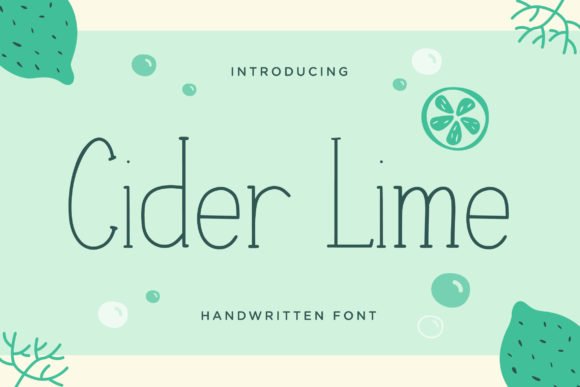
Unlock the Charm of Handwritten Texts with Cider Lime Font
Have you ever sat down with a cup of coffee, staring at a blank page, and suddenly, a brilliant design idea pops into your head? It’s moments like these that make being a designer so magical. You envision a beautiful layout, with elegant typography that draws the viewer in and tells a story. For those who have experienced this creative spark, we have exciting news: the perfect font to bring your ideas to life is just around the corner.
Meet the Cider Lime Font, a delightful serif font that adds a friendly and appealing touch to any design. This stylish font is perfect for creating gorgeous and unique layouts that capture the essence of your brand or message. Whether you’re a graphic designer, a blogger, or a small business owner, the Cider Lime Font is an invaluable asset to your design toolkit.
Cider Lime Font Key Features
- Font Family: Cider Lime Font, a unique, hand-drawn sans-serif typeface designed to evoke a sense of freshness and playfulness.
- Character Count: 248 characters, including uppercase and lowercase letters, numbers, punctuation marks, and special characters.
- Unique Characteristics: Features a distinctive, hand-drawn feel with subtle texture and imperfections, adding a touch of personality to any design project.
Cider Lime Font Review
Cider Lime Font is a beautiful, modern sans-serif typeface that’s perfect for adding a touch of freshness to your designs. Here’s what I think:
- The font’s x-height is well-balanced, making it easy to read even at smaller sizes.
- The unique, rounded edges of the letters add a playful touch without sacrificing readability.
- The font’s open feel makes it ideal for use in branding and packaging design.
- The font’s legibility can suffer at very small sizes (below 10pt), making it less suitable for body text.
- The font’s unique characteristics may not be to everyone’s taste, so it’s essential to use it thoughtfully.
Cider Lime Font is a great choice for designers looking to add a modern twist to their projects. While it may have some limitations, its unique personality and versatility make it a valuable addition to any font collection.
The Cider Lime font is ideal for:
- Summer-themed designs
- Outdoor and adventure marketing
Tips for Getting the Most Out of the Cider Lime Font
To get the most out of the Cider Lime font:
- Pair it with bright, bold colors to create a playful look.
- Use it in conjunction with illustrations or graphics to add visual interest.
Alternatives to Cider Lime Font for Designers
Q: Are there any specific font pairing recommendations for the Cider Lime Font?